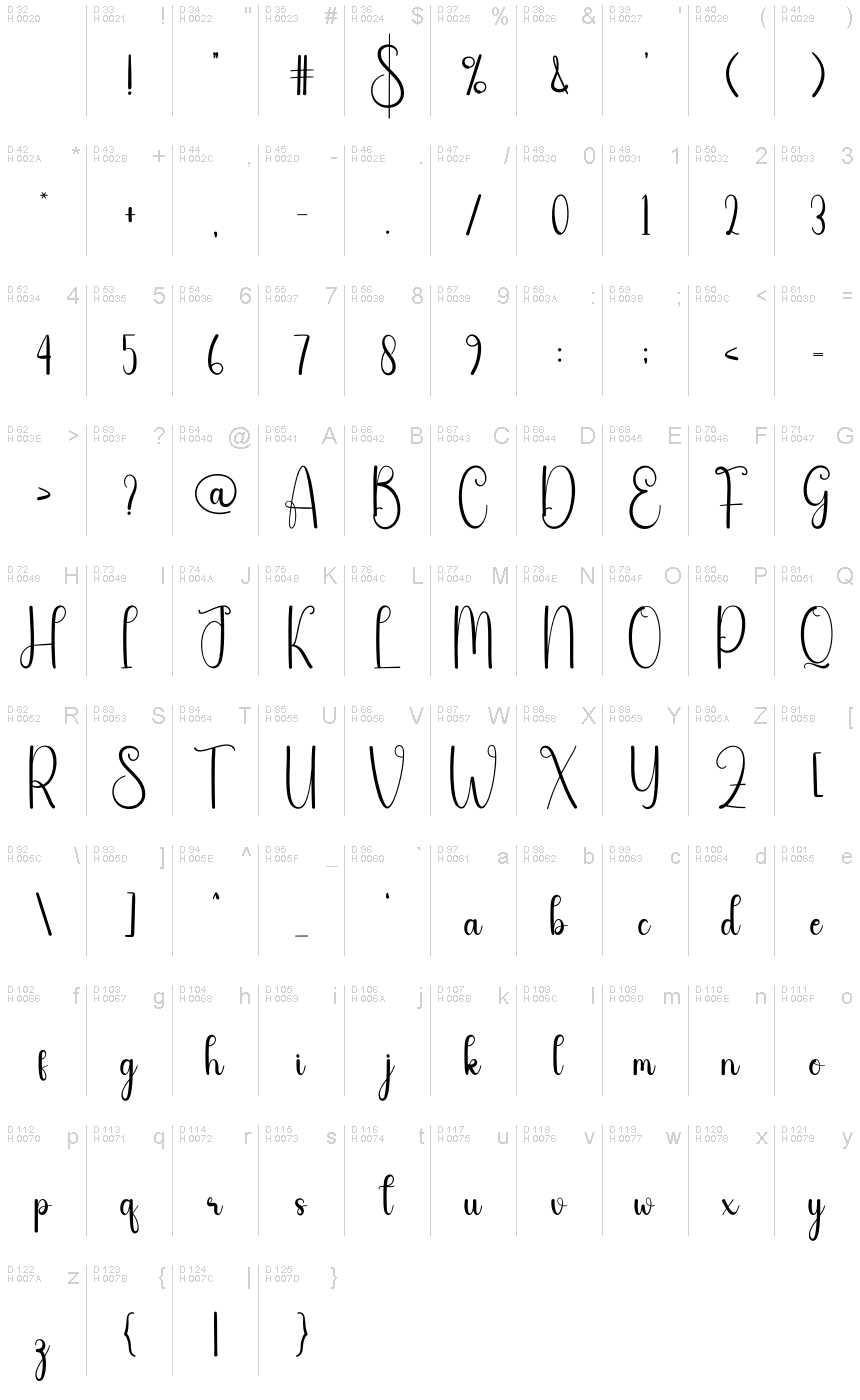
Simple Calligraphy
Simple Calligraphy is a captivating font that evokes a sense of elegant refinement. Designed by Andi Moz, this calligraphic typeface boasts flowing, organic lines that imbue each character with a graceful, handwritten flair.
The font's distinctive flourishes and subtle variations lend a timeless, artisanal quality, making it an ideal choice for a wide range of applications, from high-end branding and packaging to invitations and editorial design.
Simple Calligraphy's versatility and aesthetic appeal make it a standout option for designers seeking to infuse their work with a touch of sophisticated charm.